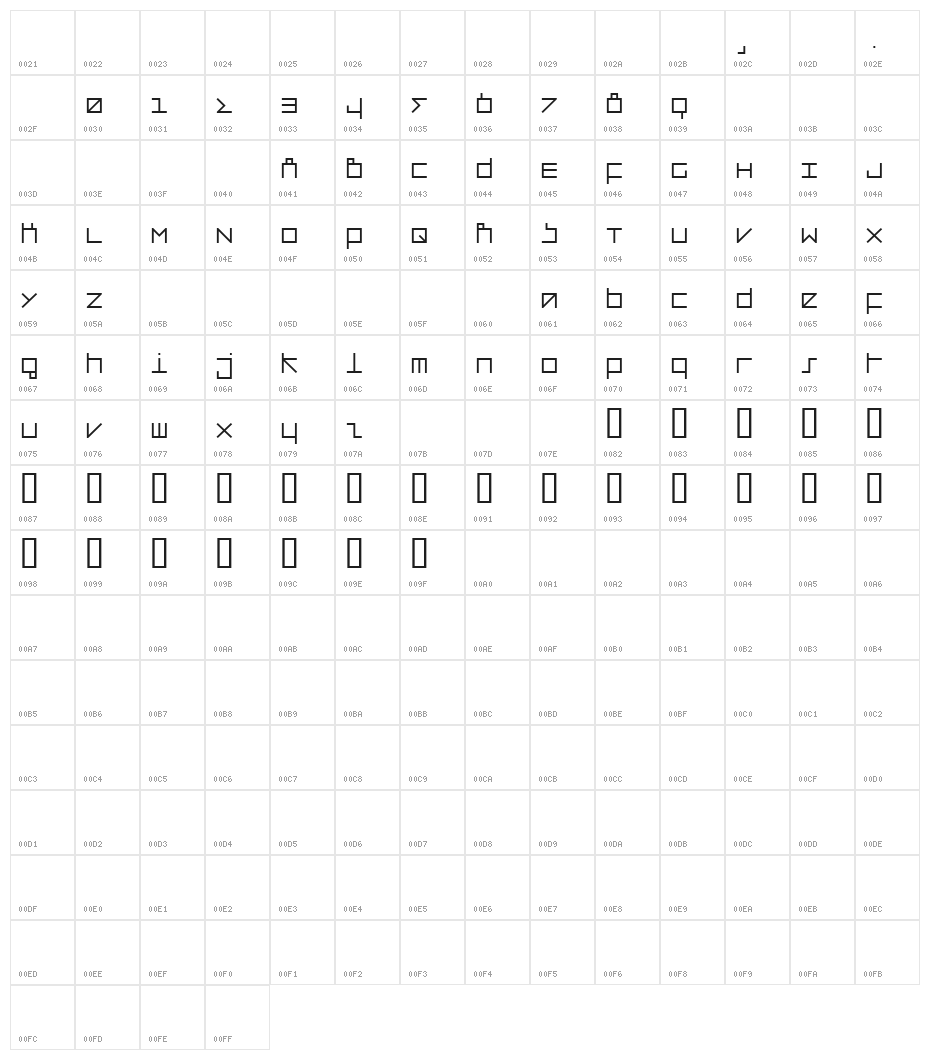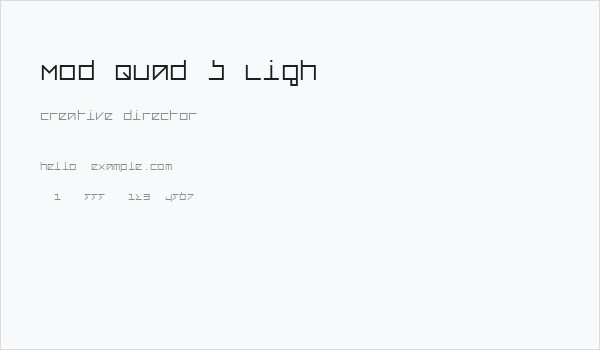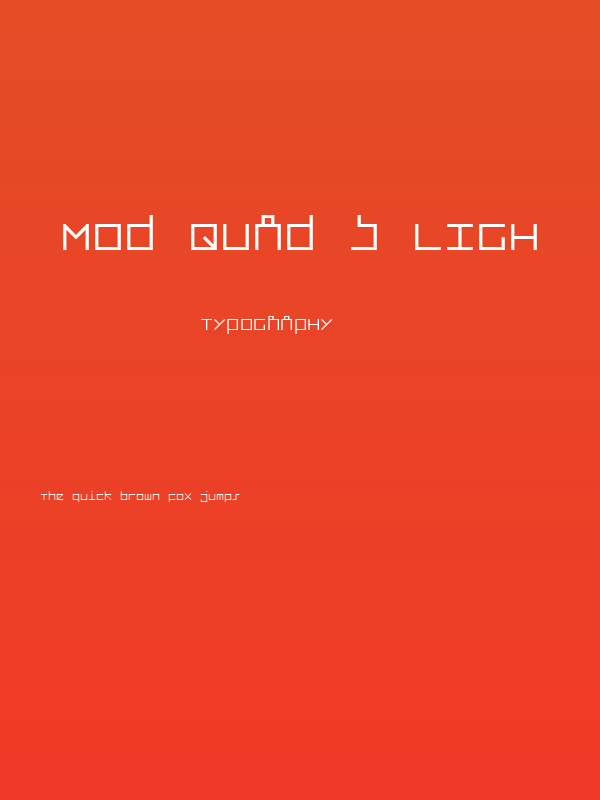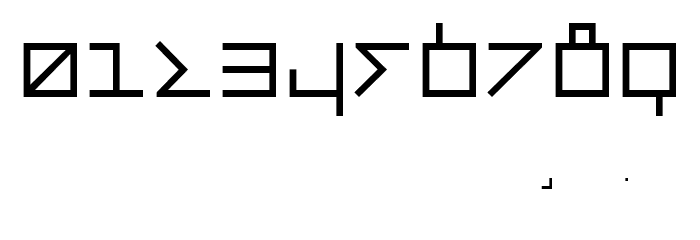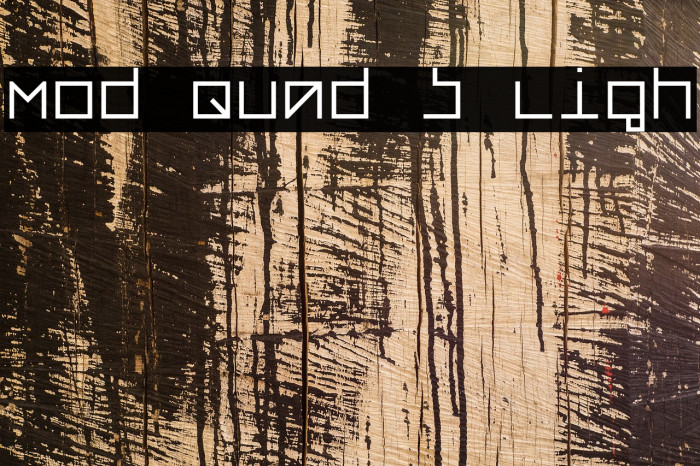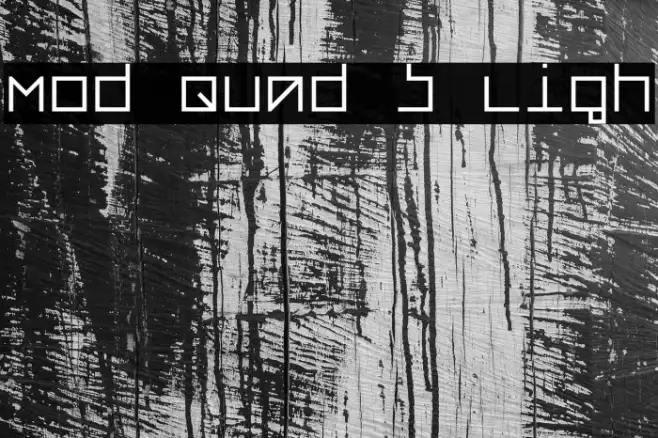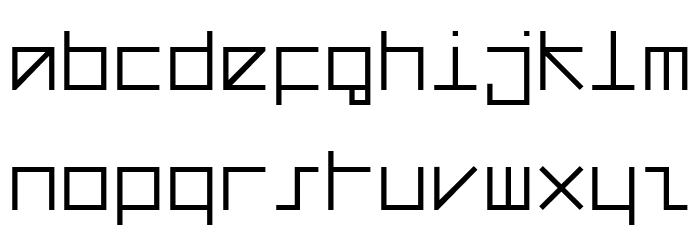
Mod Quad S Ligh Font
Mod Quad S Ligh Description
This font features a geometric and modular design, characterized by its angular and boxy letterforms. Each character is constructed with straight lines and sharp corners, giving it a futuristic and digital appearance. The uniformity in stroke width across all characters contributes to a clean and cohesive look. The uppercase and lowercase letters maintain a consistent style, with subtle variations in form to distinguish between them. Numbers and special characters are designed to match the overall aesthetic, ensuring a seamless integration within any text. This font's unique style makes it stand out, ideal for projects that require a modern and tech-savvy vibe.
| Use Case | Logos, Headlines, Digital interfaces |
| Proposed Projects | Ideal for tech-related branding, digital interfaces, video game design, and futuristic-themed posters. |